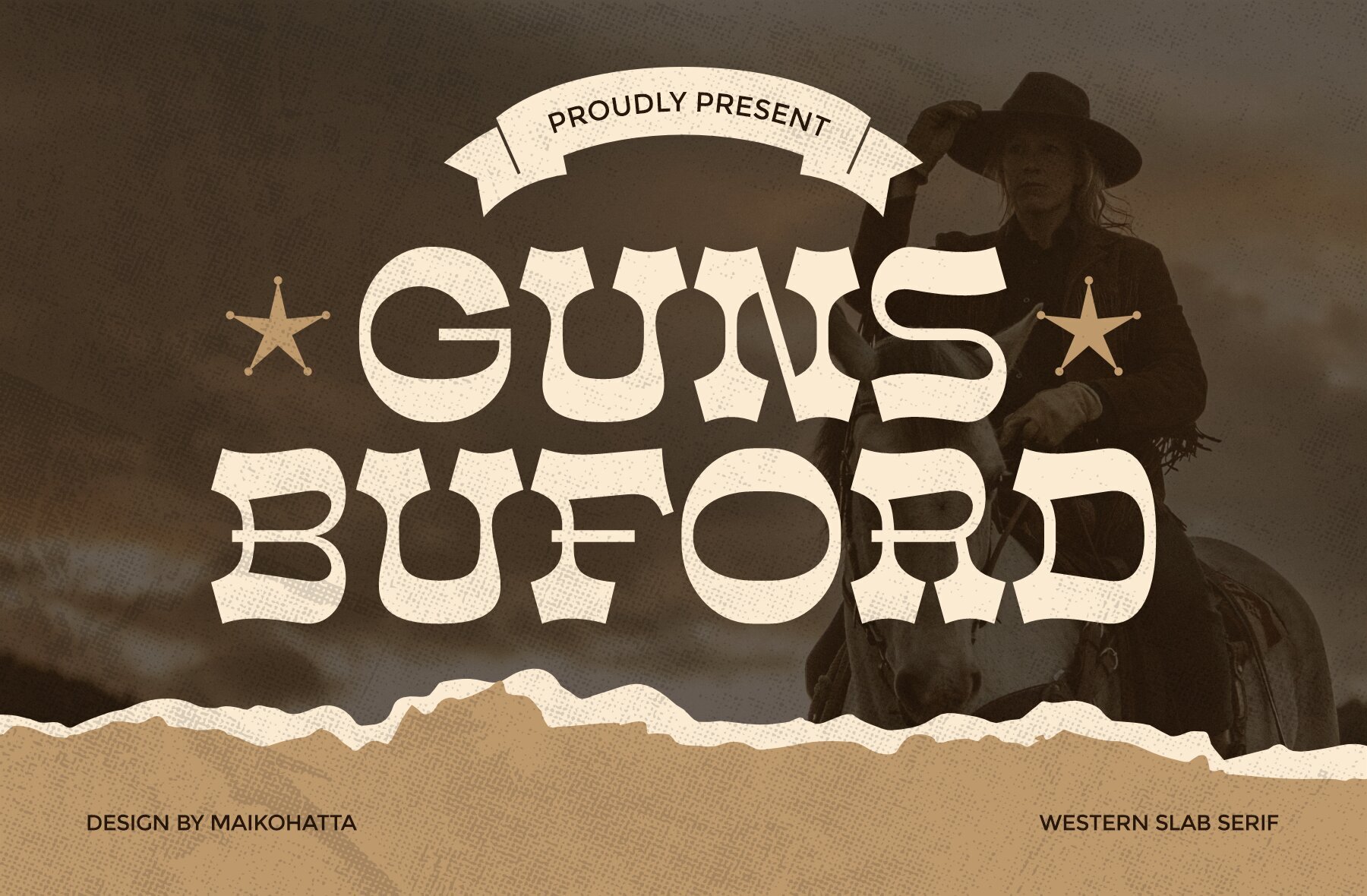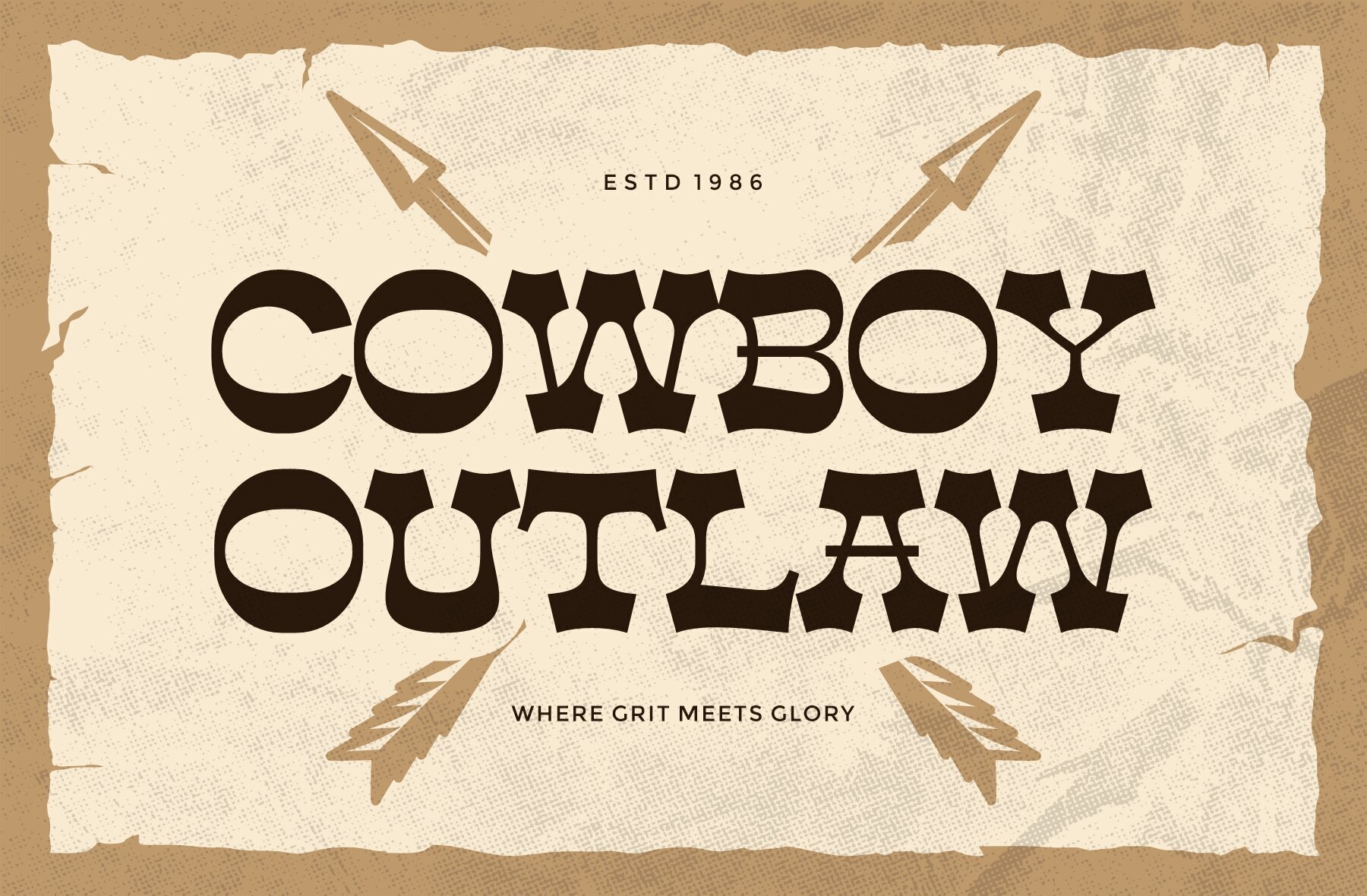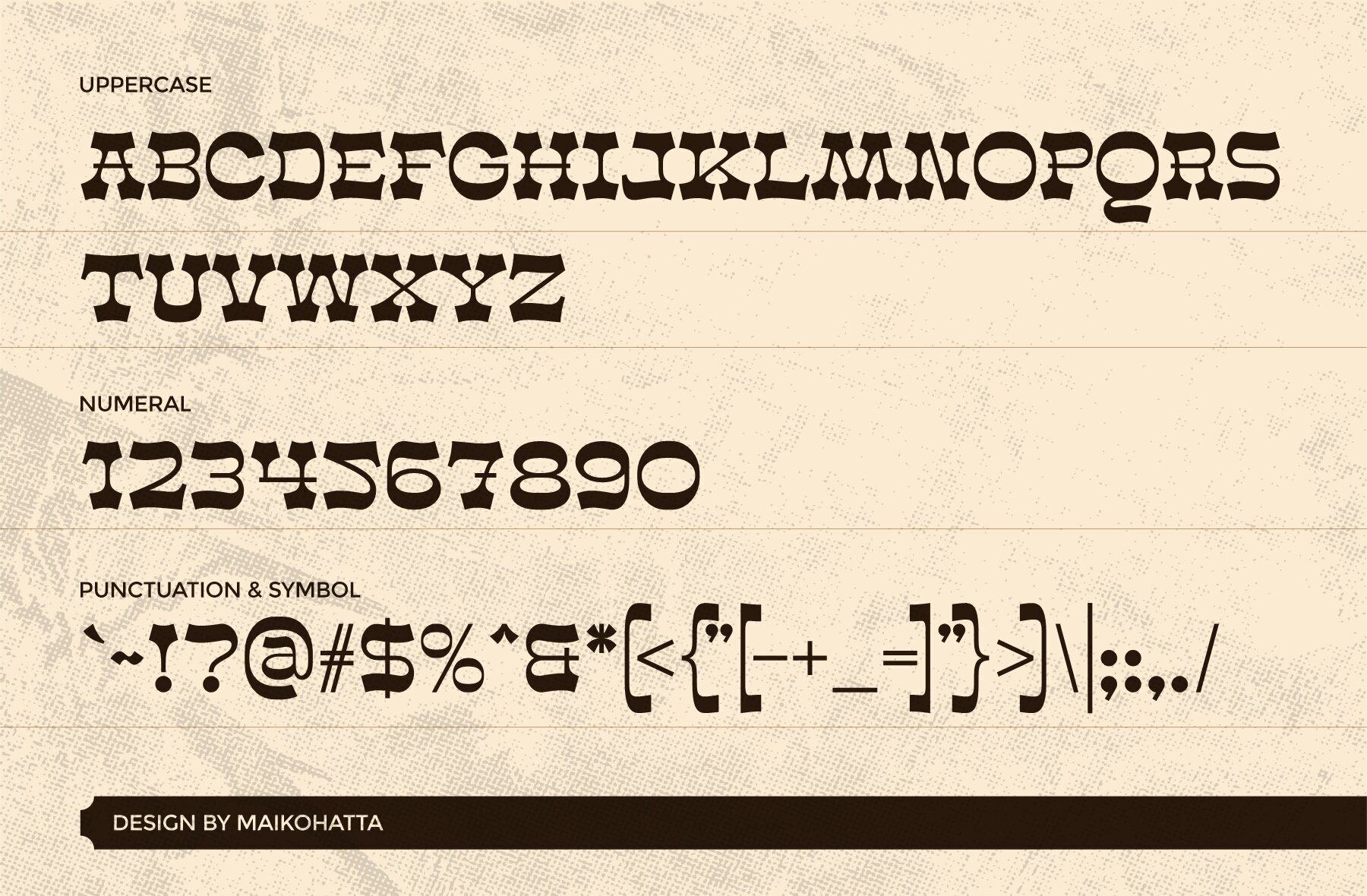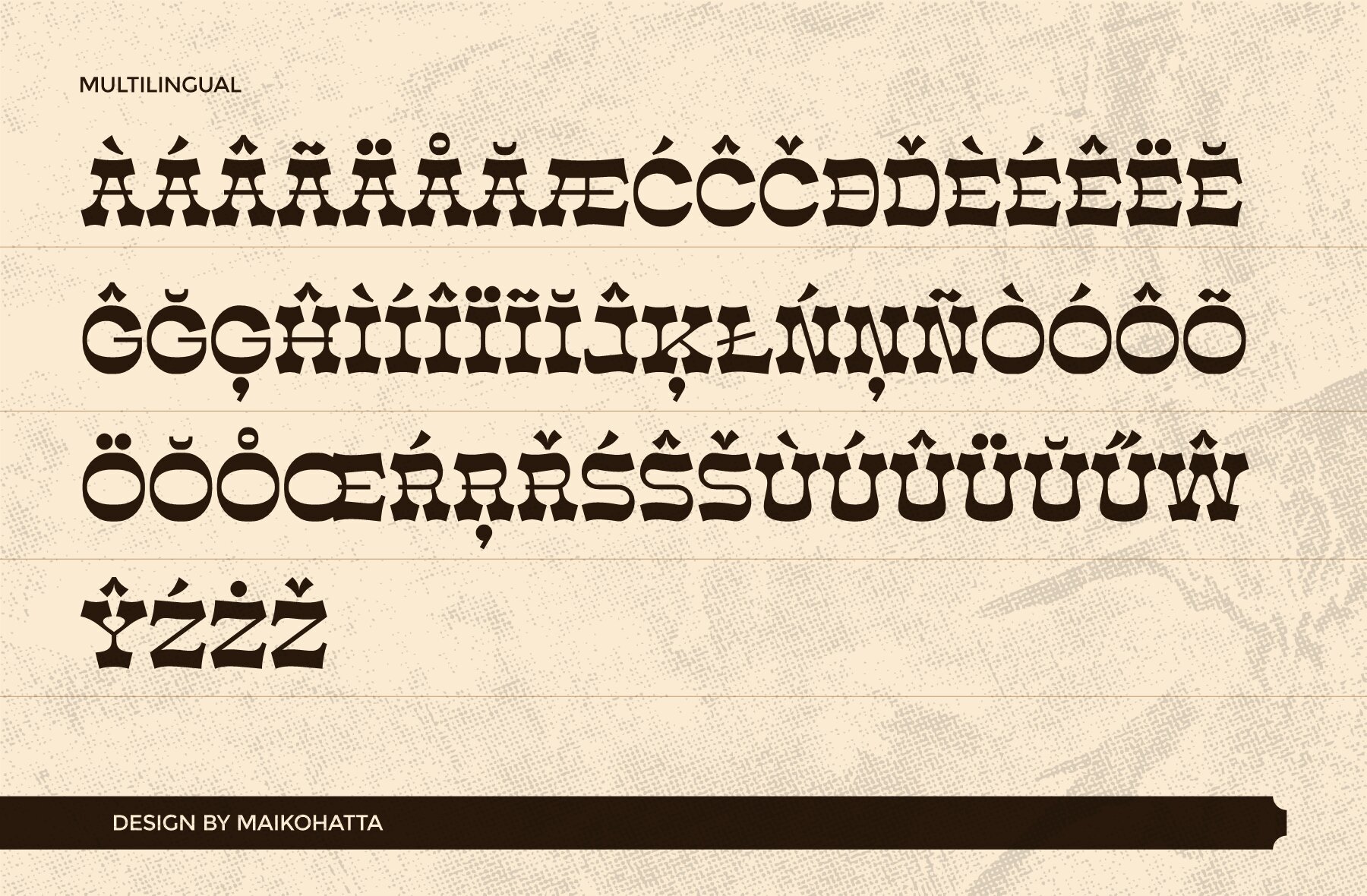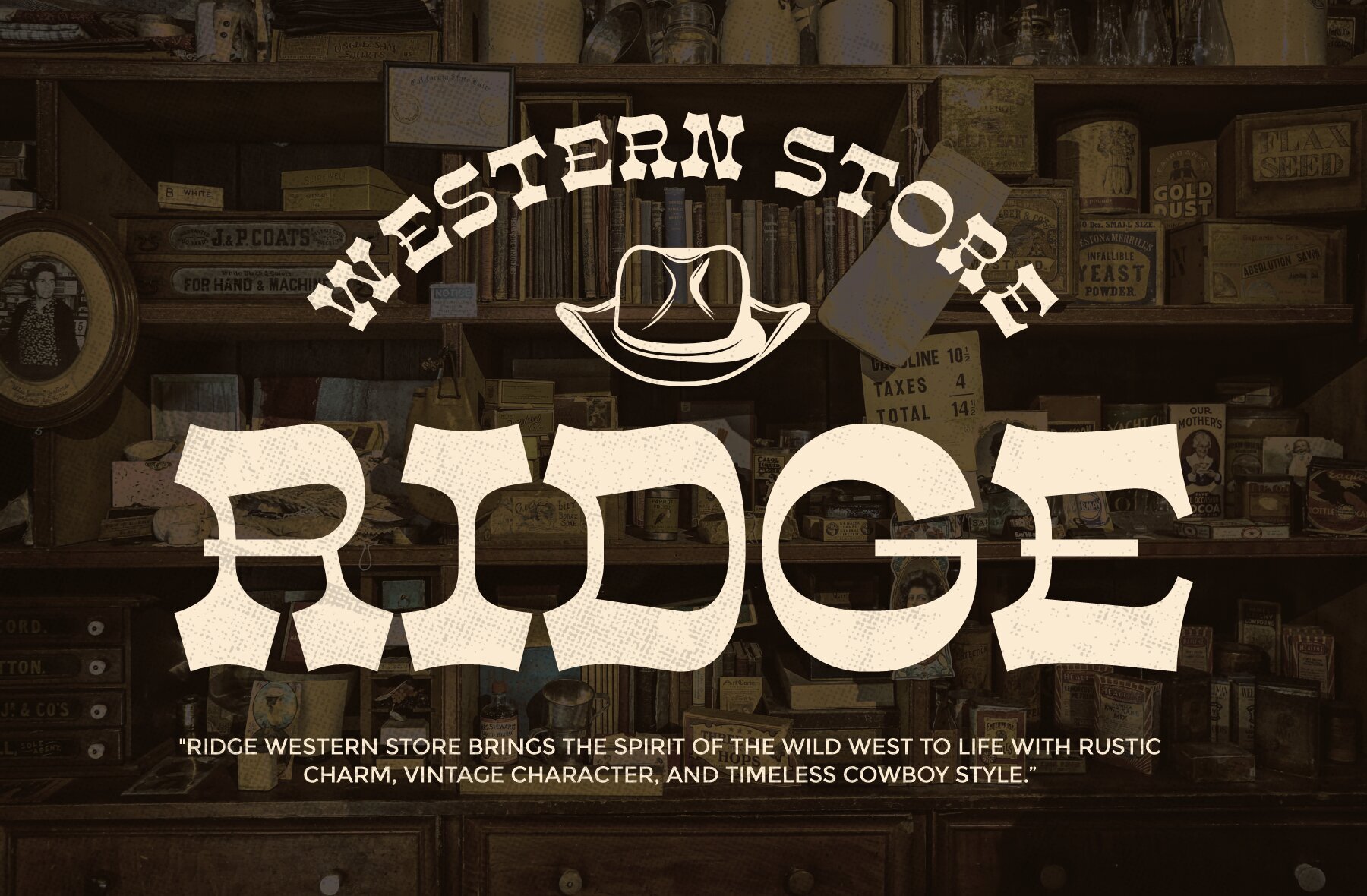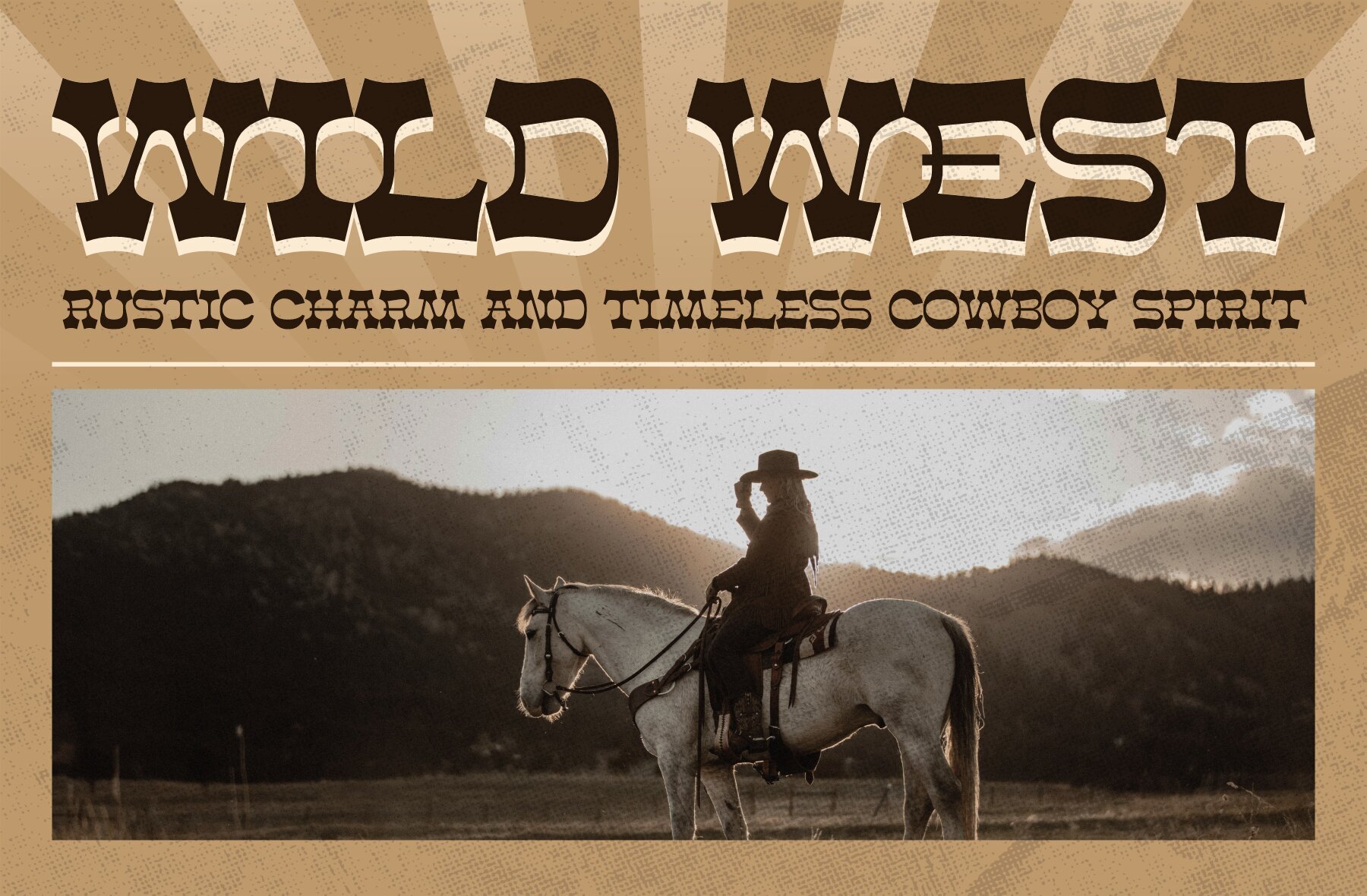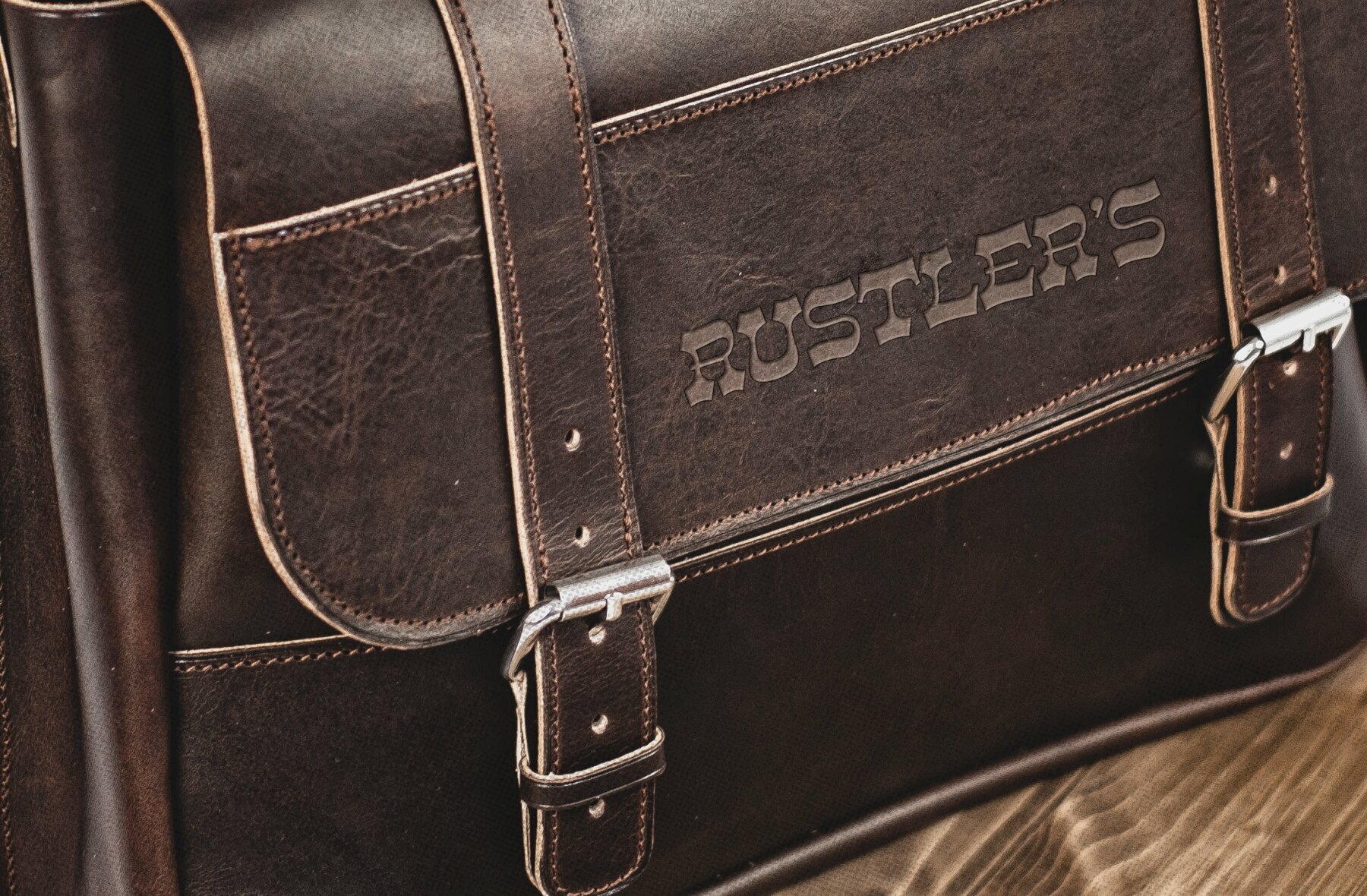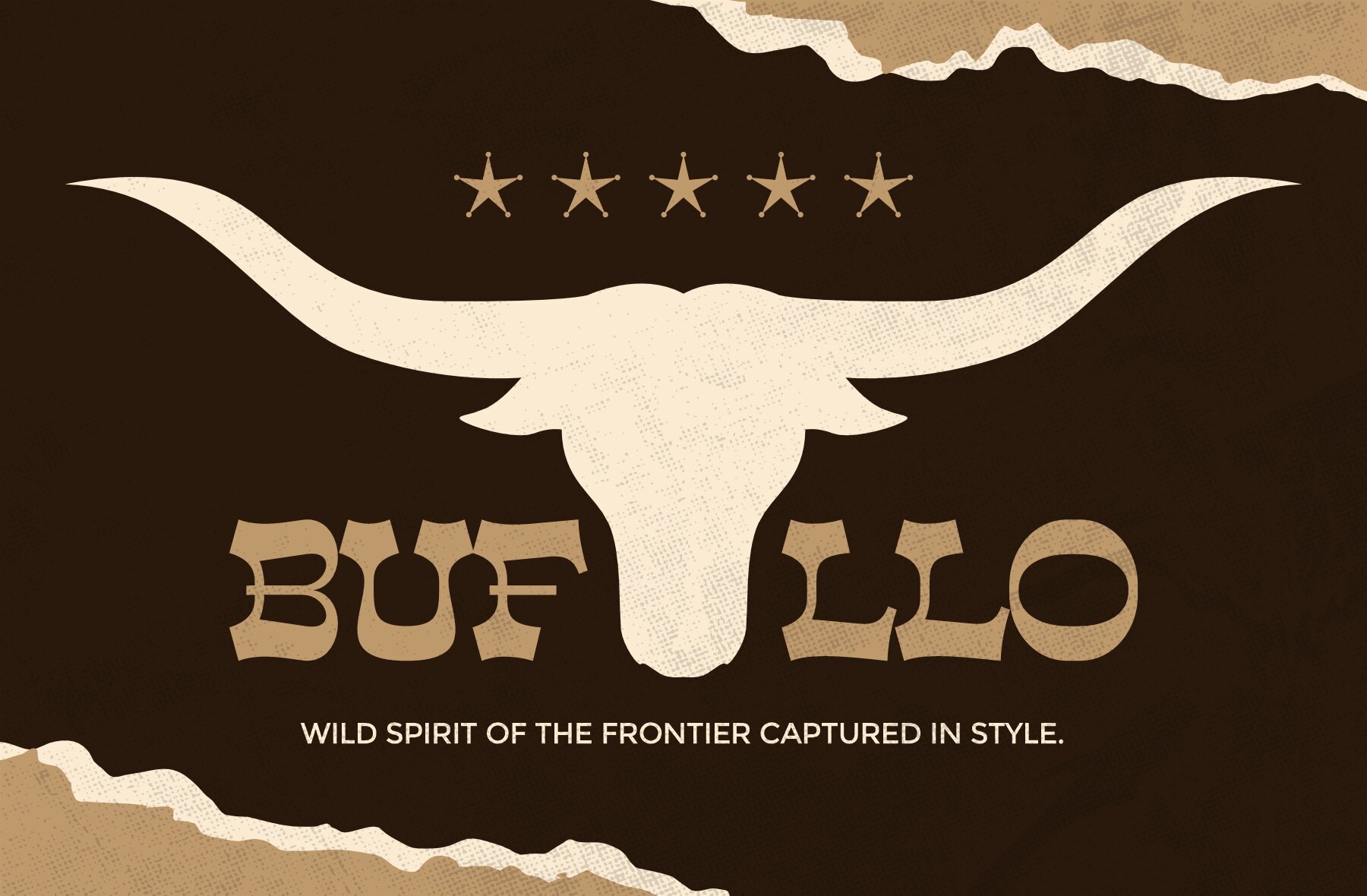
Guns Buford Font
GUNS BUFORD
Embrace the rugged allure of the frontier with Guns Buford, a bold Western-style slab serif font. Characterized by its strong curves, sharp edges, and unique letterforms, this typeface vividly captures the essence of the Wild West. Ideal for evoking a vintage cowboy or outlaw atmosphere, Guns Buford is the perfect choice for enhancing posters, logos, branding, movie titles, signage, and apparel with an authentic touch of frontier charm.Unleash the Spirit of the Wild West with Guns Buford
Perfect for a Range of Design Projects